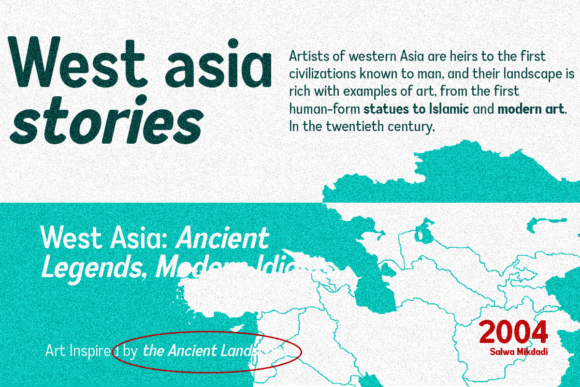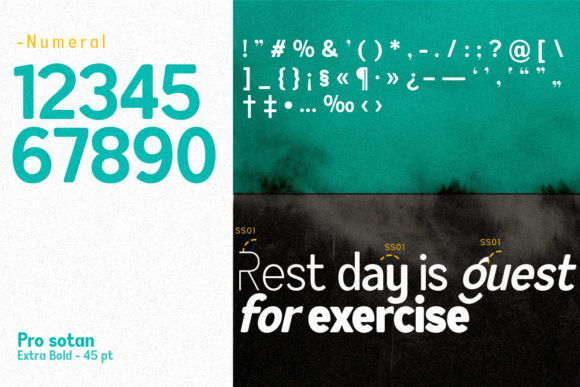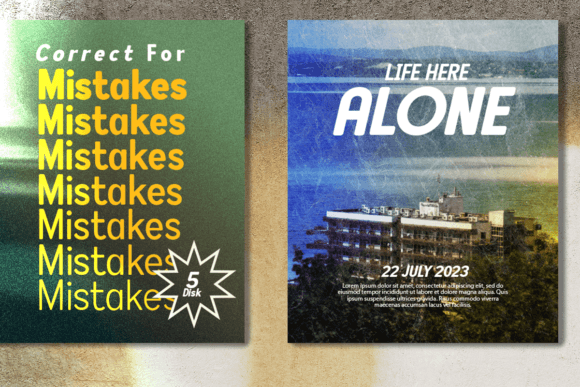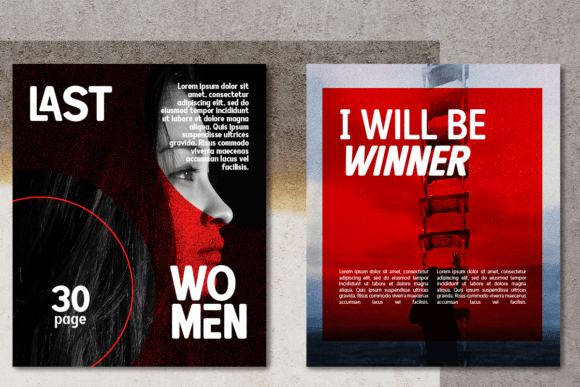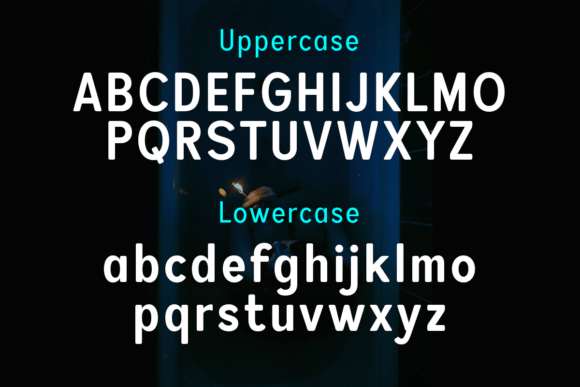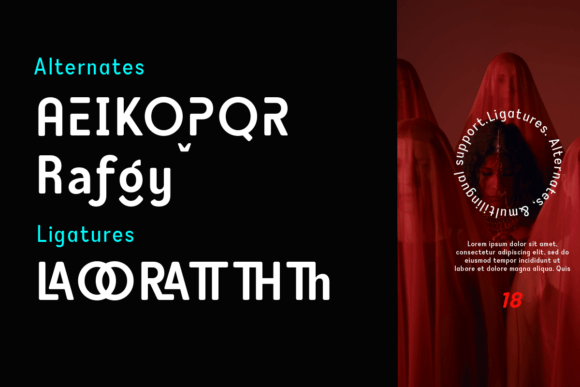
Introduction to Pro Sotan Font
As a designer, there’s nothing quite like the thrill of discovering a new font that perfectly captures the essence of your creative vision. For me, that moment came when I stumbled upon the Pro Sotan Font. Its soft, rounded edges and effortless charm immediately made me think of love letters, vintage postcards, and warm summer evenings.
With its wide range of applications, from greeting cards to headlines, the Pro Sotan Font is a valuable addition to any designer’s toolkit. Whether you’re working on a high-quality project that requires a transparent background or simply need a design resource that’s both free to download and full of character, this font is sure to deliver.
As a design resource, the Pro Sotan Font offers a unique blend of style and versatility that’s hard to find elsewhere. Its romantic feel and high-quality design make it an essential tool for any creative project, from weddings to baby showers and beyond.
Key Features of Pro Sotan Font
- High-quality font design suitable for creative projects requiring a unique touch.
- Transparent background, making it easy to use in digital design and graphic projects.
- Comes in multiple font sizes and styles, including bold, italic, and regular.
- Designed with a high resolution of 300 DPI for optimal clarity and legibility.
- Perfect design resource for creative professionals and hobbyists alike.
- Can be used in a variety of applications, including logos, typography, and web design.
Honest Review: Pro Sotan Font
As a designer, I’m always on the lookout for high-quality design resources to elevate my creative projects. Recently, I came across the Pro Sotan Font, and I’m excited to share my thoughts on it.
- Unique and elegant design aesthetic
- Comes in a transparent background, allowing for seamless integration with any design
- Wide range of font styles and weights to choose from
- May not be suitable for projects requiring a bold, attention-grabbing font
- Some users may find the font’s elegance too understated for certain creative projects
In my opinion, the Pro Sotan Font is a solid addition to any designer’s toolkit. While it may not be the most versatile font, its unique aesthetic and high-quality design make it a great choice for projects where subtlety is key. Overall, I’m impressed with this design resource and would recommend it to designers looking for a stylish and professional font.
Tips for Getting the Most Out of Pro Sotan Font
For optimal results, use the Pro Sotan Font in conjunction with other design resources, such as graphics and images. Experiment with different font sizes, colors, and styles to create a visually appealing design. The Pro Sotan Font is versatile and can be used in a variety of creative projects.
The Pro Sotan Font is commonly used in design projects that require a unique and creative look, such as infographics, social media graphics, and presentations. Its high quality and transparent background make it an ideal design resource for designers and creatives.